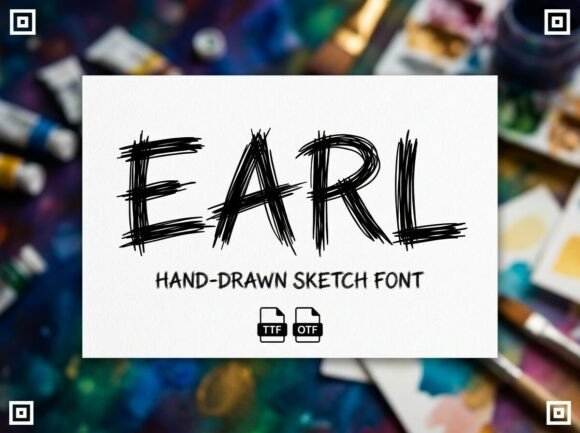
Earl Font: A Stunning Decorative Display Font for Creative Minds
Are you tired of using the same old fonts for your creative projects? Look no further than the Earl Font, a decorative display font designed to turn heads. With its unique artistic elements and strong visual personality, this font is perfect for creators who want to break away from the ordinary and make a statement.
What Makes Earl Font Special?
The Earl Font is a versatile decorative font that is specifically designed for high-impact headlines, logos, and decorative initials. Its unique and artistic design makes it perfect for bold headlines, artistic logos, and creative packaging, while maintaining a professional and polished finish.
One of the standout features of the Earl Font is its ALL-CAPS (Uppercase Only) design. This means that it does not include lowercase letters, making it specifically suited for display purposes where every letter is a work of art. Whether you’re designing a logo, headline, or decorative initial, the Earl Font is sure to make a lasting impression.
Use Cases for Earl Font
The Earl Font is perfect for a variety of creative projects, including:
• Headlines and Titles: Use the Earl Font to create eye-catching headlines and titles that demand attention.
• Logos and Branding: Create a lasting impression with a custom logo or branding design that showcases your unique personality.
• Packaging and Labels: Add a touch of elegance and sophistication to your packaging and labels with the Earl Font.
• Art and Design: Use the Earl Font to add a creative and artistic touch to your designs, from posters and flyers to brochures and more.
Why Choose Earl Font?
There are many decorative fonts on the market, but the Earl Font stands out from the rest. Here are just a few reasons why:
• Unique Design: The Earl Font features a unique and artistic design that is sure to turn heads.
• Versatility: The Earl Font is versatile enough for a variety of creative projects, from bold headlines to artistic logos and packaging.
• Professional Finish: Despite its decorative nature, the Earl Font maintains a professional and polished finish that’s perfect for businesses and individuals alike.
Tips for Using Earl Font
To get the most out of the Earl Font, here are a few tips to keep in mind:
• Use it sparingly: The Earl Font is designed to make a statement, so use it sparingly to maximize its impact.
• Experiment with colors and textures: Don’t be afraid to experiment with different colors and textures to add depth and interest to your designs.
• Pair it with other fonts: The Earl Font pairs well with a variety of other fonts, so don’t be afraid to get creative and try out different combinations.
The Earl Font is a stunning decorative display font that’s perfect for creative minds who want to break away from the ordinary. With its unique artistic elements, strong visual personality, and versatility, this font is sure to make a lasting impression. Whether you’re designing a logo, headline, or decorative initial, the Earl Font is the perfect choice.